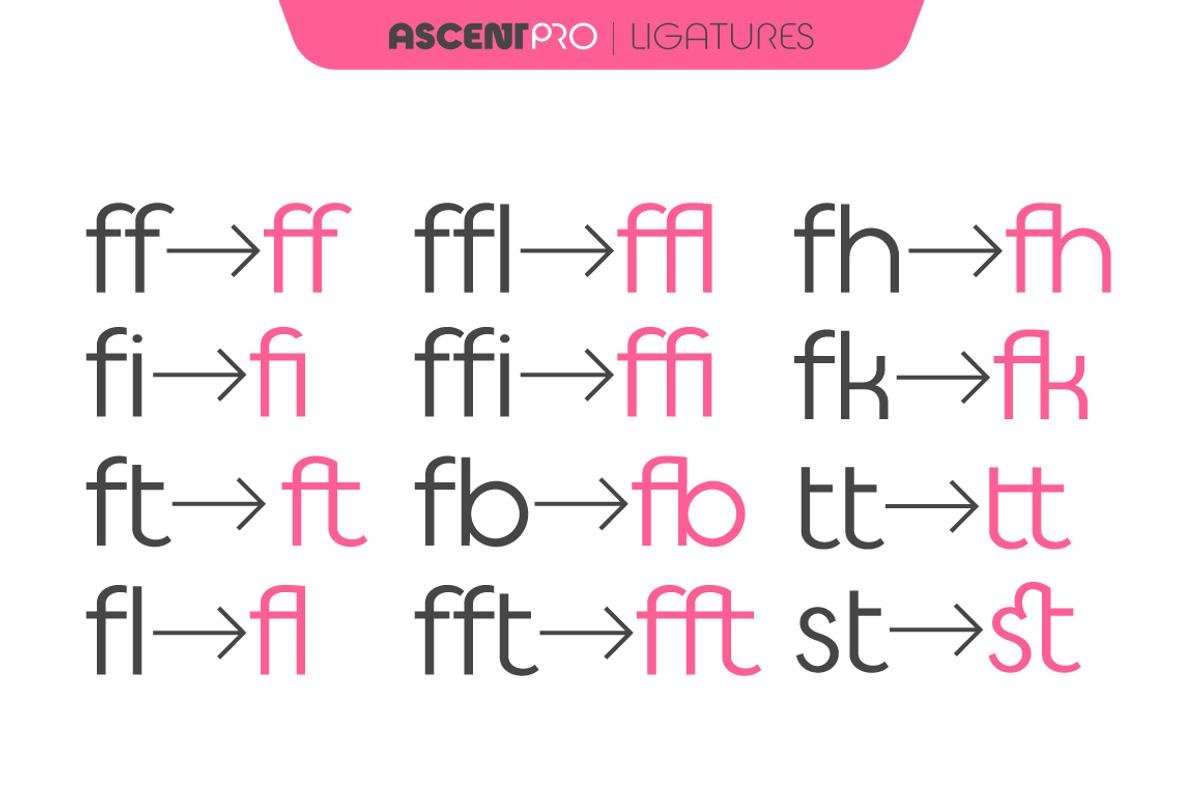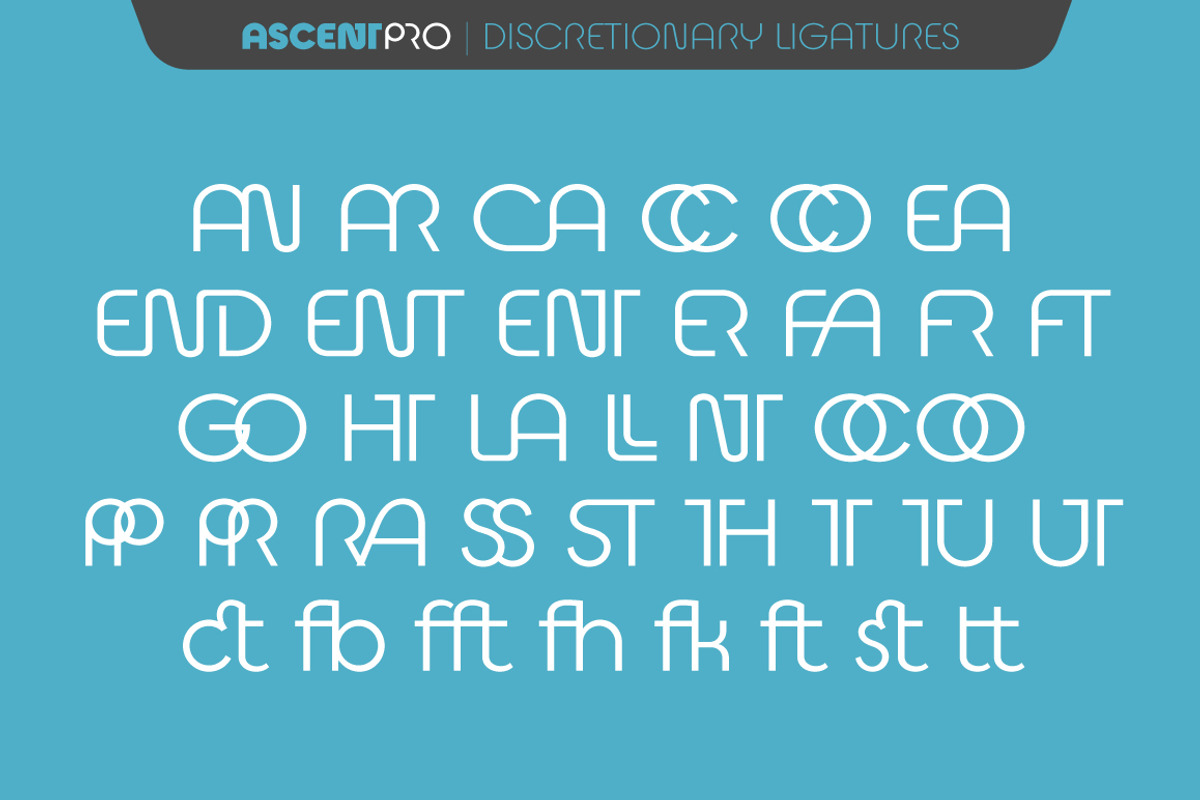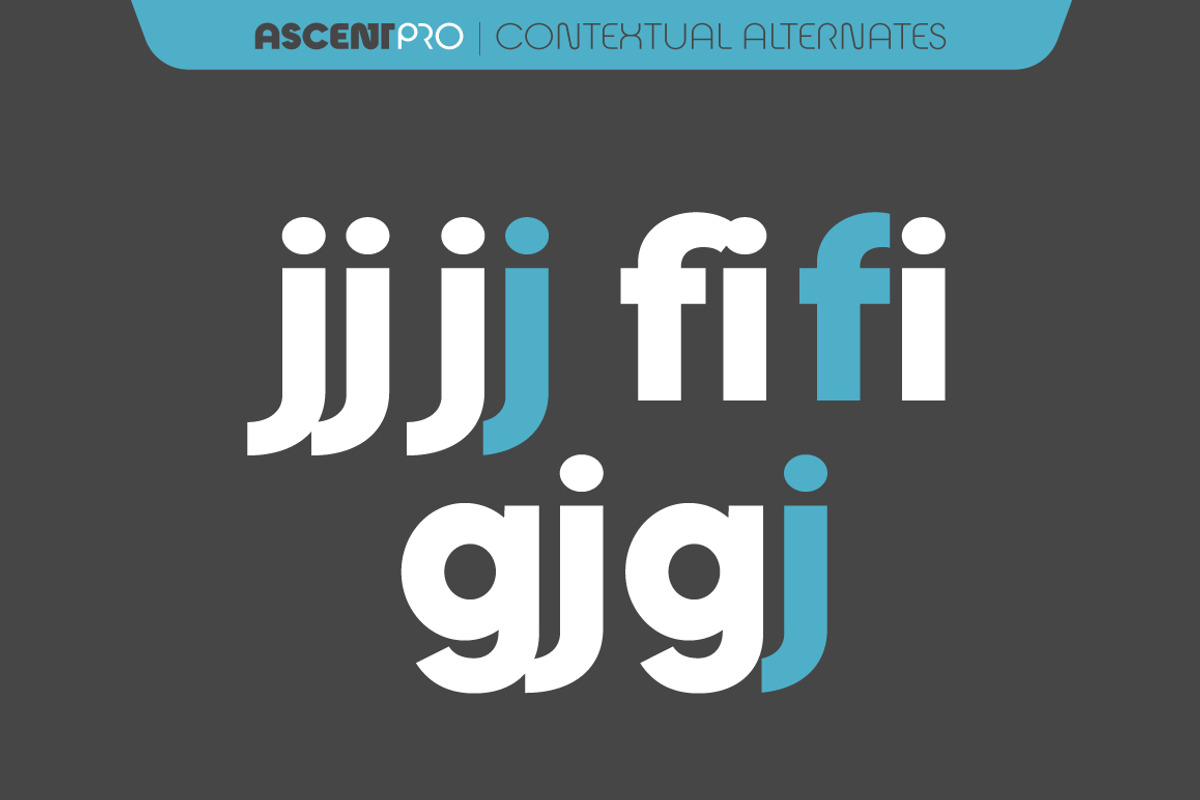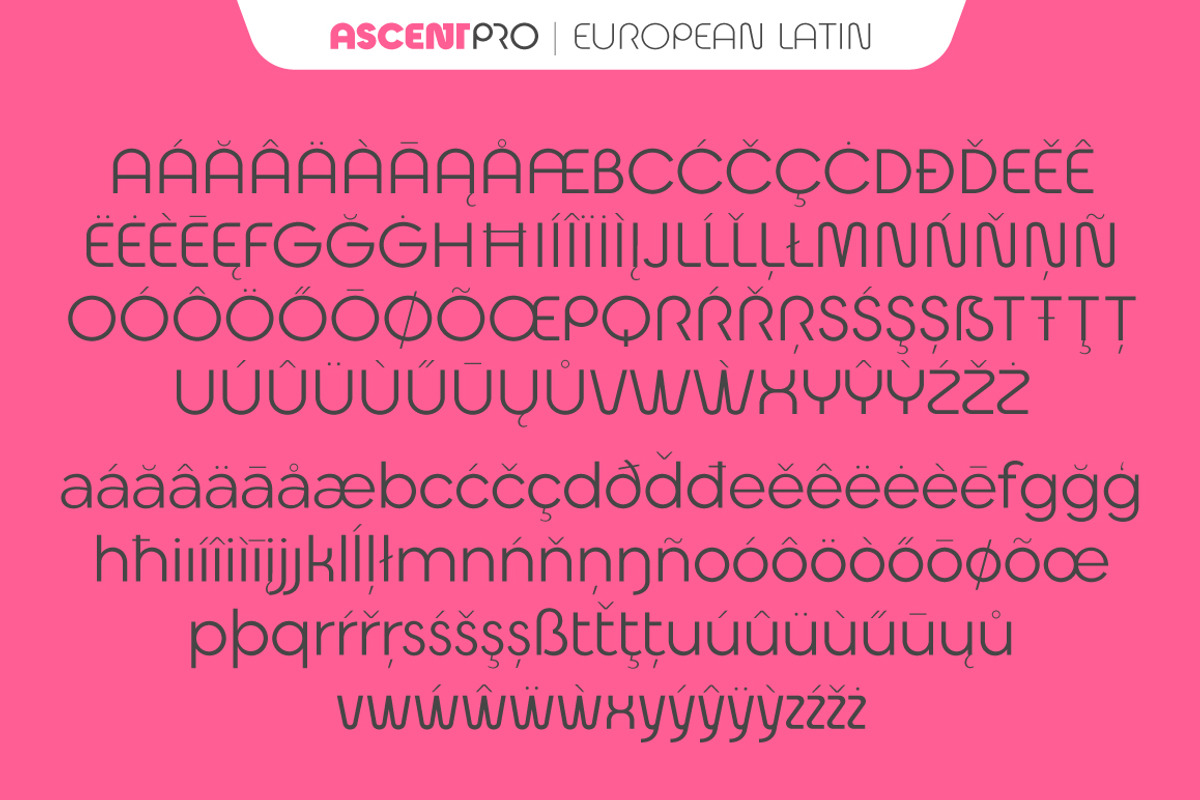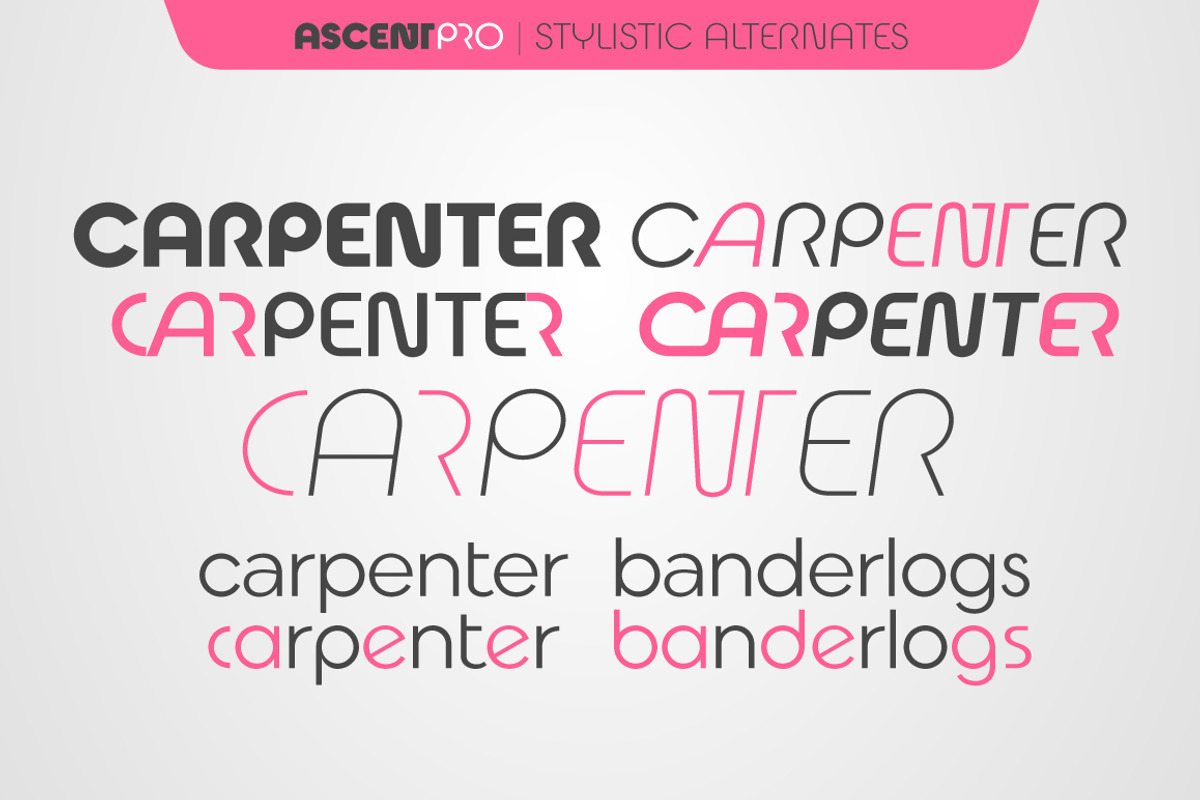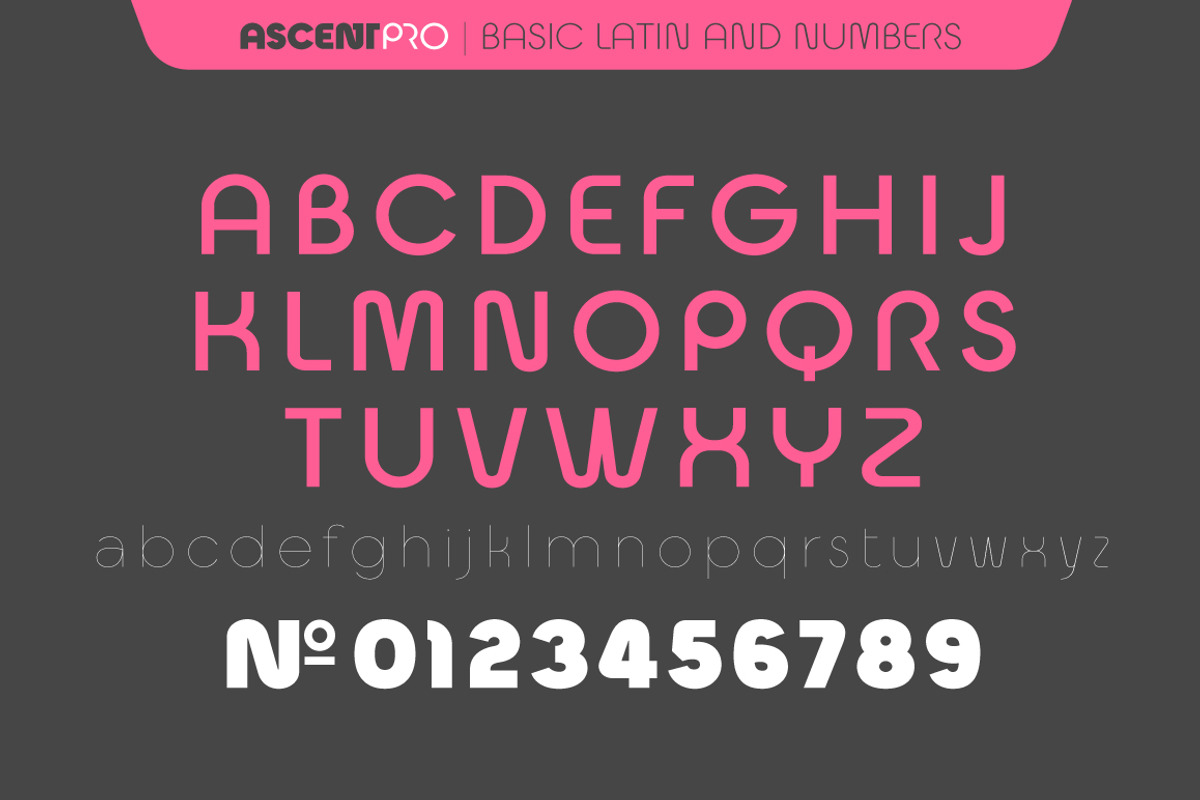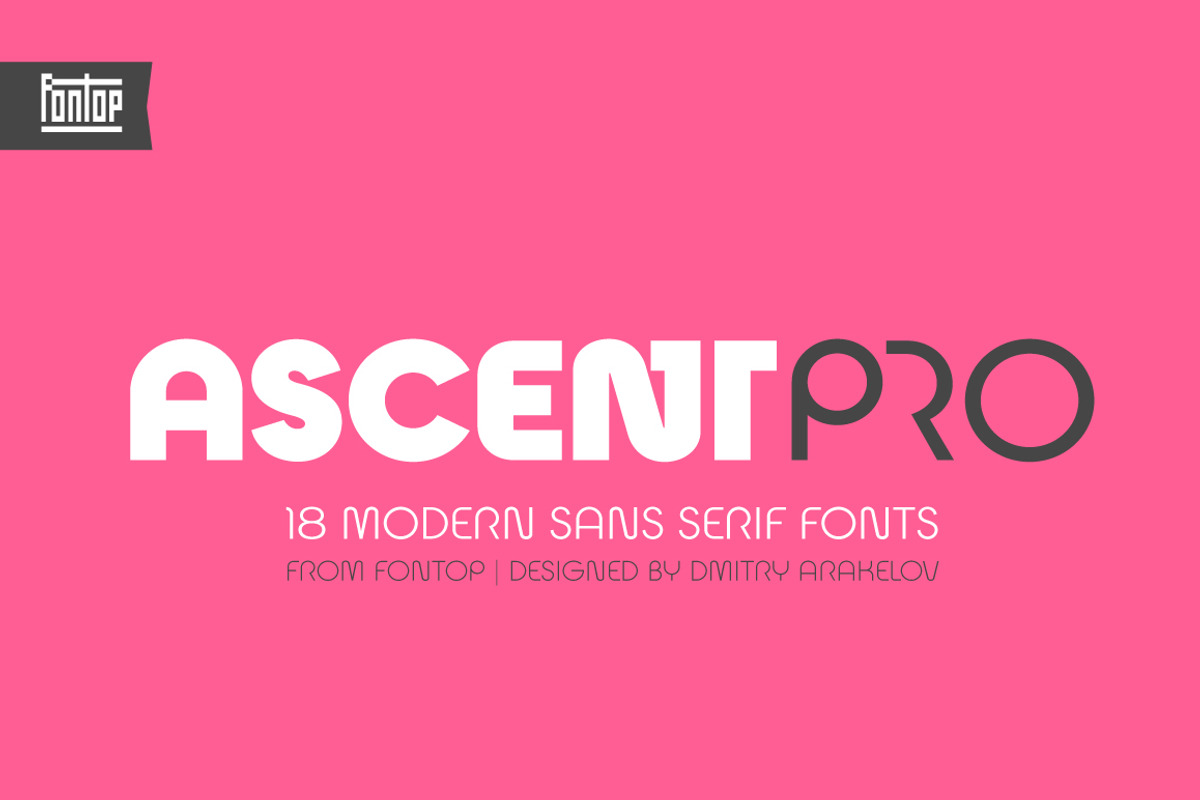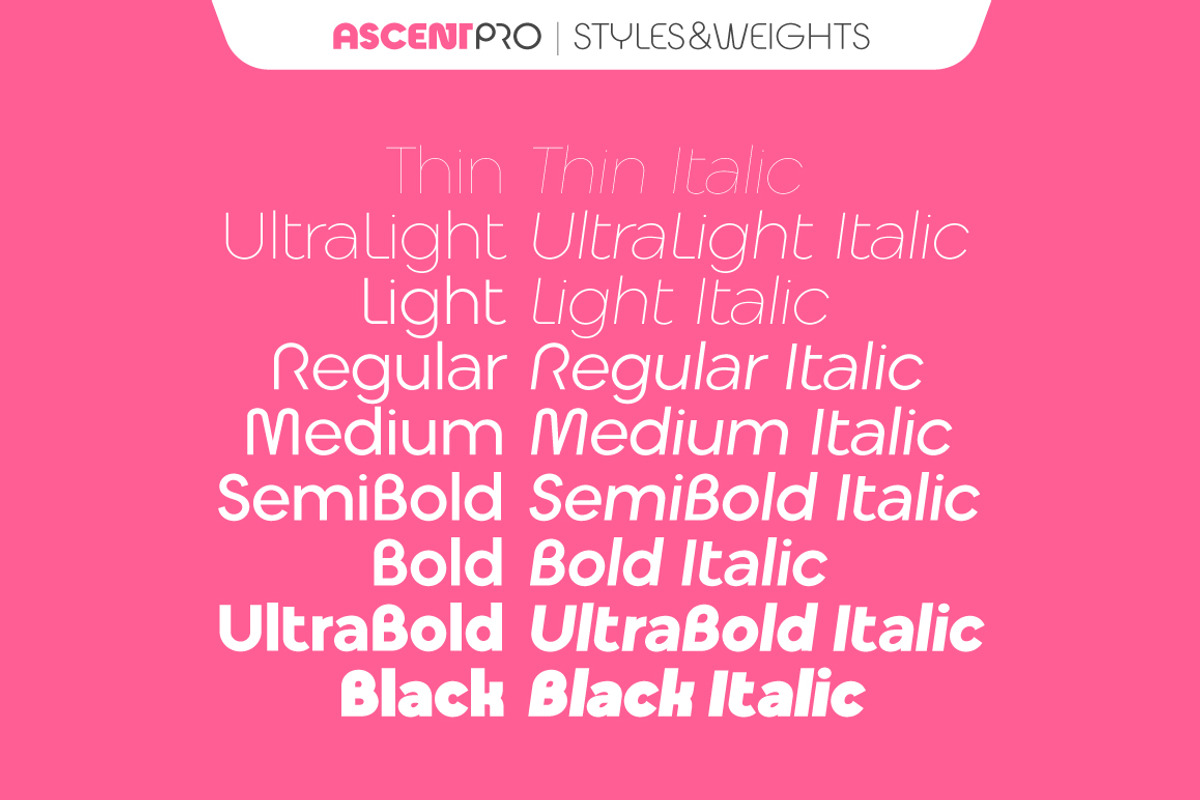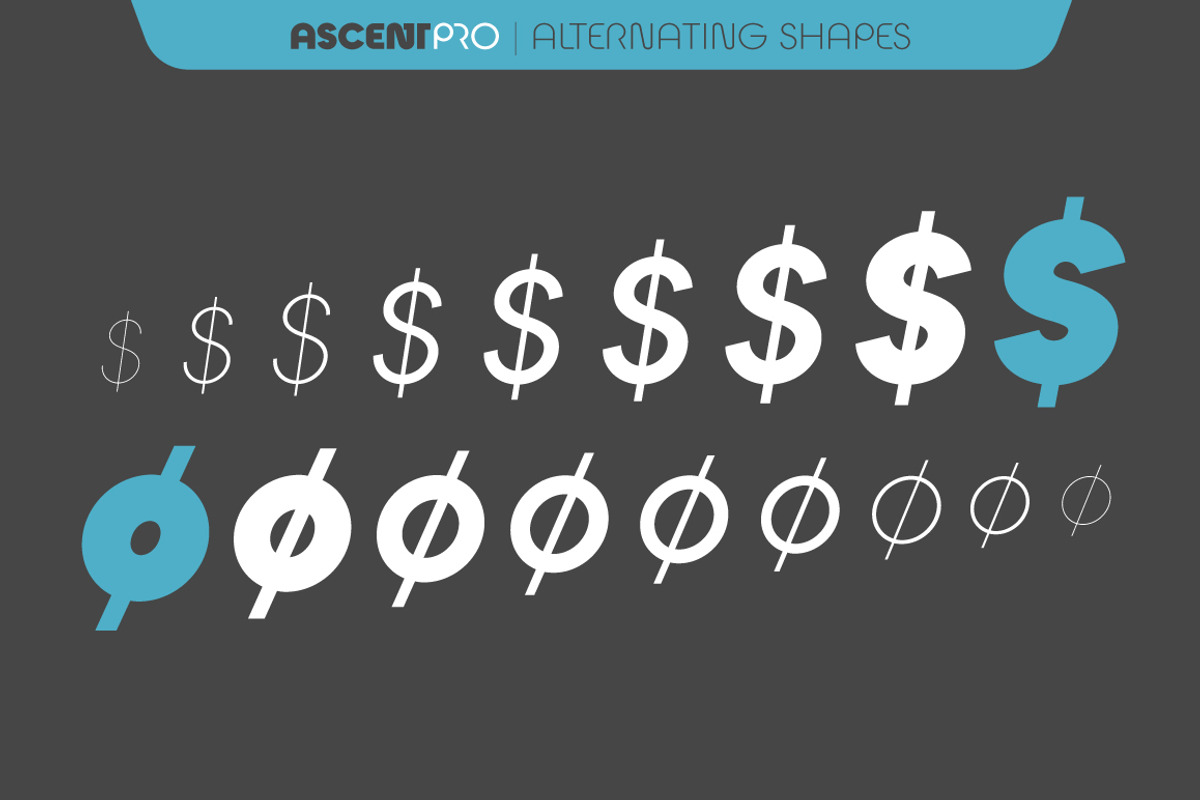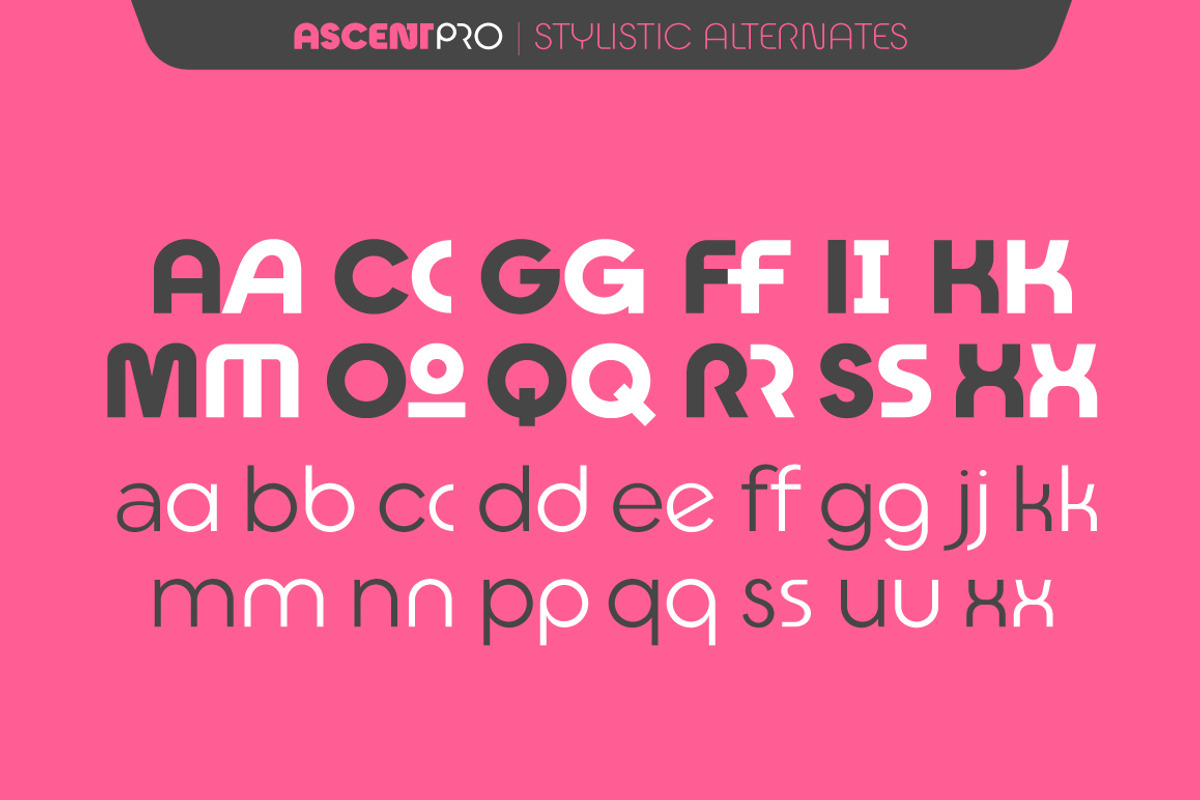
Ascent Pro (18 fonts)
Ascent Pro – a modern geometric sans serif with an engaging character. Inviting and versatile, with ton of stylistic alternates and ligatures to choose AscentPro works perfectly for logos, headlines, posters, packaging, business cards and many more! Thinner fonts look great in text copy. All in all 18 fonts including obliques provide you with a huge number of design options.
18 weights and obliques
Stylistic Alternates & Contextual Alternates
Standard Ligatures & Discretionary Ligatures
Fractions, Superscript & Subscript
Multiple Latin Languages Supported
Each font has Latin multilingual support as well as uppercase letters, lowercase letters, numbers and basic punctuations and all necessary ligatures and alternates.